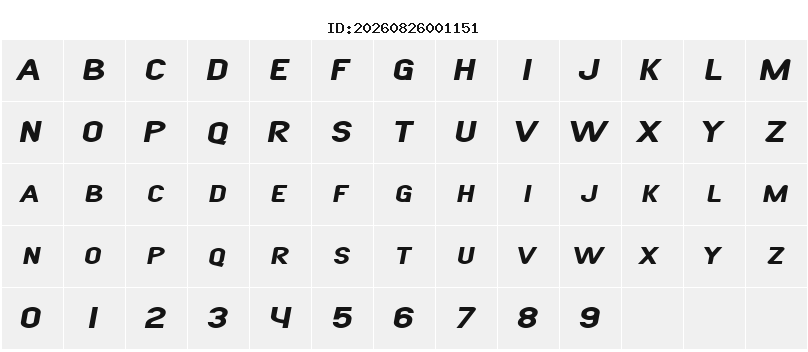
SF Atarian System Extended Preview
• Font Name: SF Atarian System Extended
• Font ID: SF Atarian System Extended Bold Italic
• Full Font Name: SF Atarian System Extended Bold Italic
• PostScript Name: SFAtarianSystemExtendedBoldItalic
• Character Count: 103
About SF Atarian System Extended.ttf
SF Atarian System Extended.ttf is a modern, elegant sans-serif font designed for ultimate readability and visual harmony. Perfect for branding, headlines, web design, and print materials.